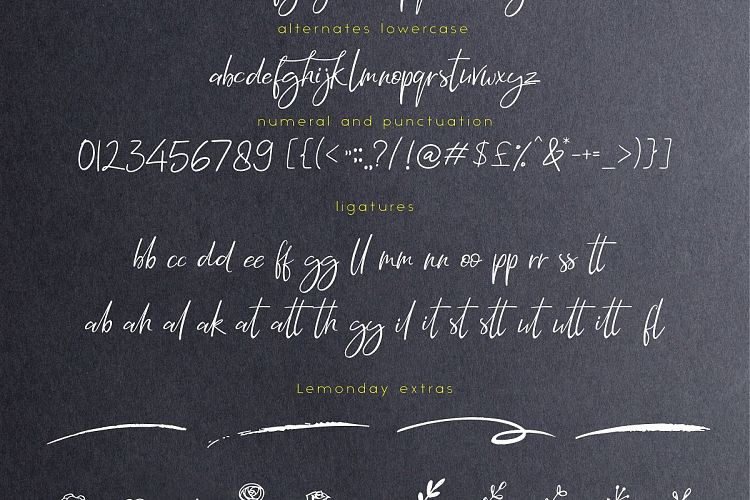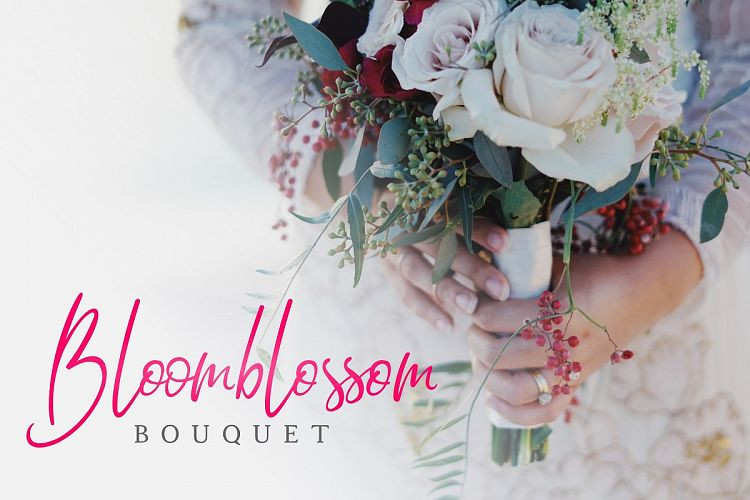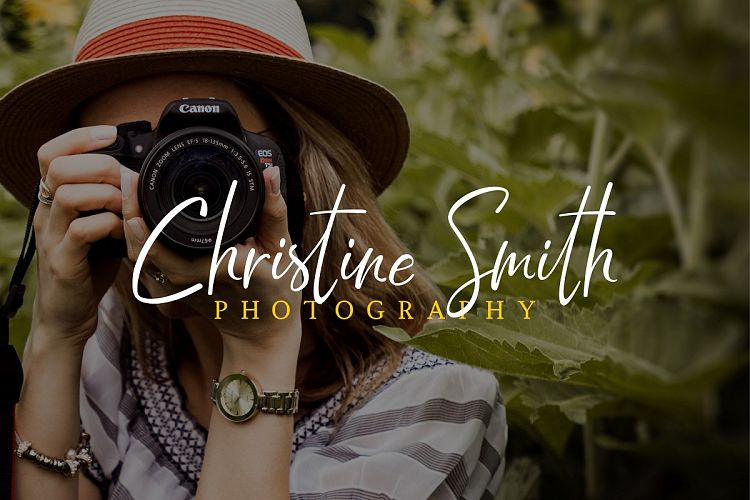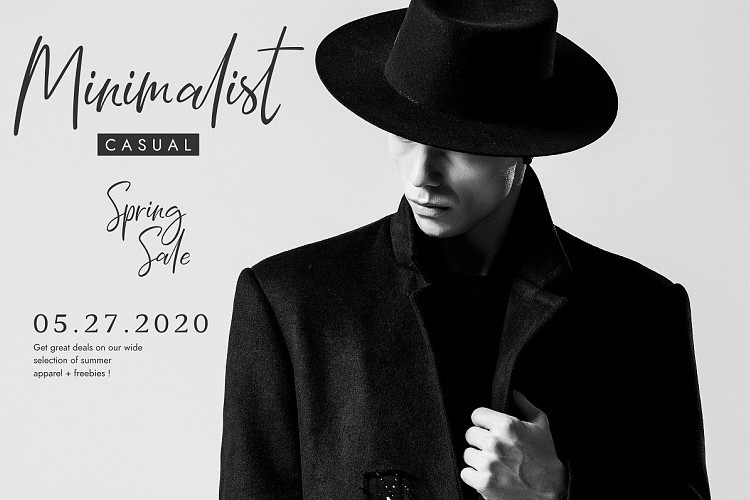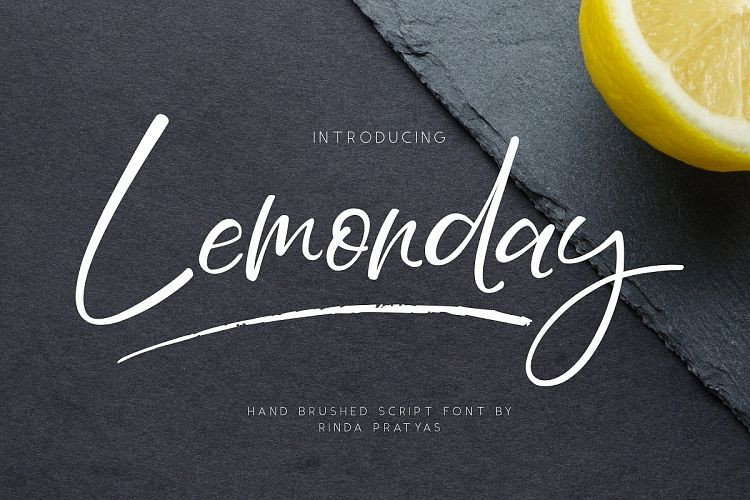
Lemonday Script Font
Lemonday Script Demo Font
Thank you for looking Lemonday Font. A new fresh handmade brush font, this font looks elegant, expressive, readable, stylish, catchy and easy to use. It is designed and shared by RINDA PRATYAS. Lemonday Script Font is hand brush style font with stunning characters. Ideal for logos, name tag, handwritten quotes, product packaging, merchandise, social media & greeting cards. It contains a full set of lower & uppercase letters, a large range of punctuation, numerals, and multilingual support.